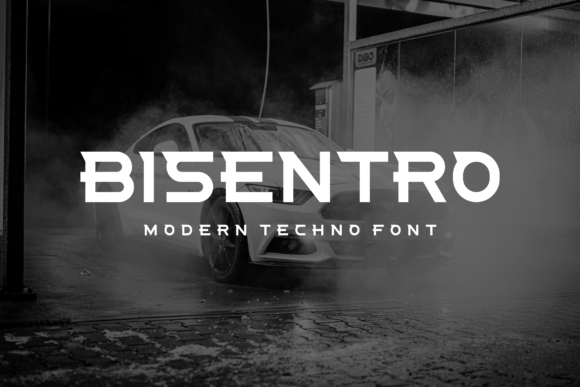
The Future of Typography: Bisentro Font Takes Center Stage
You know that moment when you’re brainstorming ideas for a new project and suddenly, everything clicks into place? That’s what happens when you come across the perfect font. For designers, finding the right typography can make all the difference in elevating a design from ordinary to extraordinary.
Enter Bisentro Font, a sleek and modern techno font that’s about to revolutionize the way you approach digital design. With its clean lines and futuristic look, Bisentro Font is the perfect choice for tech-focused projects that demand a stylish and readable appearance. Whether you’re creating a cutting-edge website, a futuristic app, or a sleek brochure, Bisentro Font is the perfect partner to help you achieve your design goals.
Bisentro Font Key Features
- Font Family: Bisentro Font is a sans-serif font family that offers a clean and modern look.
- Font Sizes: Bisentro Font is designed to be highly legible at various font sizes, from 8pt to 24pt, making it suitable for body text and headlines.
- Unique Characteristics: Bisentro Font features a distinctive x-height and a carefully crafted letter spacing, resulting in a highly readable and visually appealing text.
Bisentro Font Review
I’ve had the chance to work with Bisentro Font, and I must say it’s a unique and intriguing typeface. Here’s my honest take on its strengths and weaknesses.
- ✨ Elegant, modern design: Bisentro Font has a sleek and sophisticated look that’s perfect for contemporary branding and design projects.
- ✨ Versatile: The font comes in a range of weights and styles, making it suitable for various applications, from headings to body text.
- ✨ Unique characteristics: Bisentro Font has some interesting flourishes and details that set it apart from more common fonts.
- ⚠️ Limited legibility: At smaller font sizes, Bisentro Font can become difficult to read, especially in certain line heights or with low-contrast backgrounds.
- ⚠️ Overuse of flair: While the font’s unique characteristics are a strength, they can also make it feel overly ornate or distracting in some contexts.
Overall impression:
Bisentro Font is a solid choice for designers looking to add some personality to their projects. While it may not be suitable for every application, it’s a great option for those who want to make a statement. With proper usage and consideration of its limitations, Bisentro Font can be a valuable addition to any design toolkit.
The Bisentro font is a modern and elegant script font that works well for:
- Quotes and typography-based designs.
For the best results, use the Bisentro font in combination with a clean and minimalist design aesthetic.